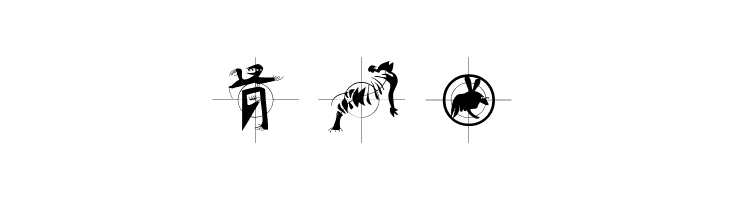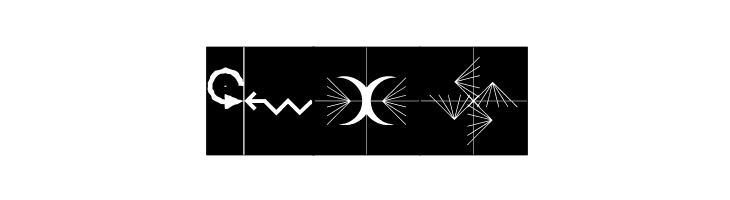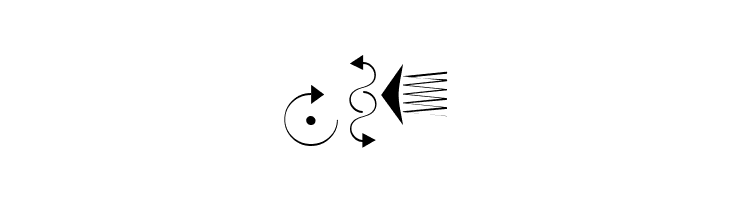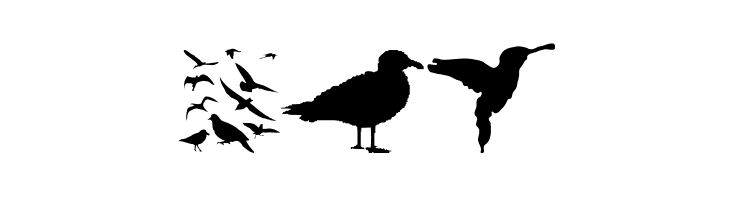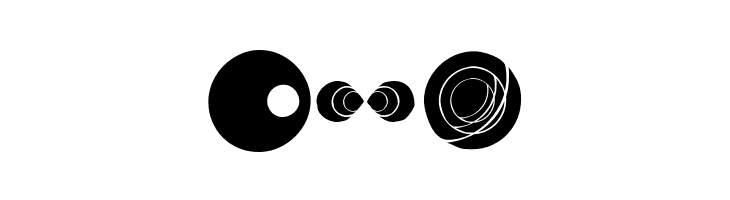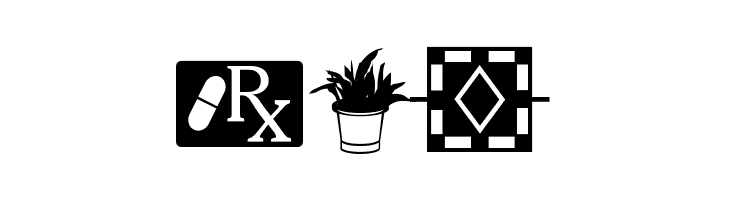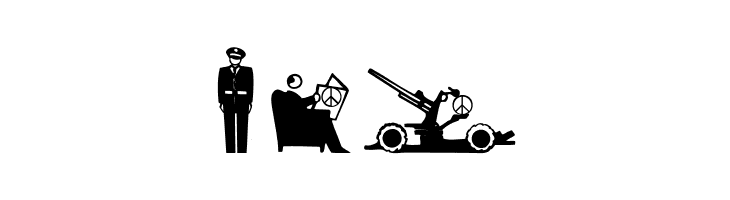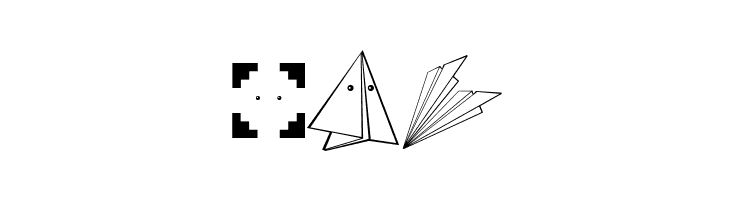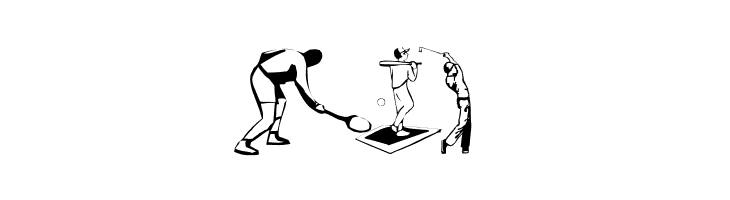
• InCrossFires
A symbol font with icons inside crosshair targets.
• ArrowsCompetition
Abstract, decorative dingbat font with arrow and geometric motifs.
• PfeileOne Regular
A diverse set of decorative and functional arrow symbols with unique styles.
• BirdsAndFriends
Silhouette-style animal and bird icon font.
• LifeIcons
A modern, decorative icon font with bold and outlined life-inspired symbols.
• Even More Dings JL
Eclectic pictogram and dingbat set with bold, playful icons.
• FightersForFreedom
Bold pictogram dingbats depicting military and war-related imagery.
• LessIsMoreOne
A dingbat font with office and business-themed pictograms.
• TypographicSignals
A symbol and dingbat font with scientific, geometric, and illustrative motifs.
• OutdoorSports
Illustrative dingbat font depicting outdoor sports.